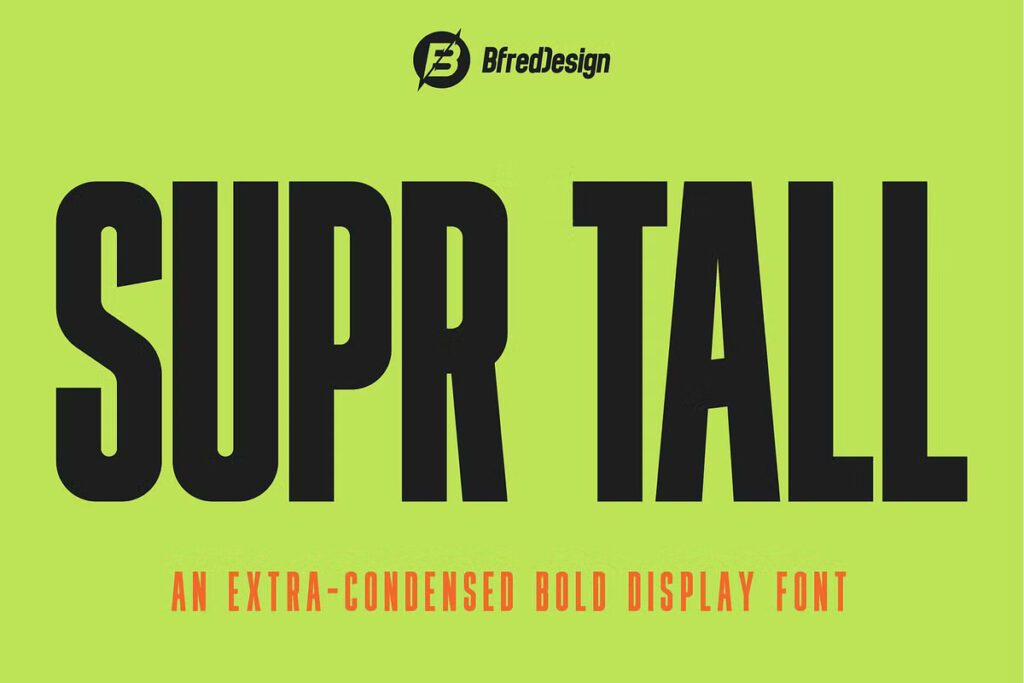
Introducing SUPR Tall – Extra Condensed Bold Display Font for Maximum Impact
Looking to create striking designs with bold typography in tight spaces? SUPR Tall is the extra-condensed addition to the SUPR Font Family, offering a perfect solution for sports graphics, posters, editorial titles, headlines, and more. Its compact yet powerful design allows you to make a big impact without taking up too much space. Whether it’s for a sports event or an eye-catching poster, SUPR Tall is versatile enough for any project.
With options like Regular, Italic, Bold, and Bold Italic, SUPR Tall gives you the flexibility to tailor your designs and achieve the bold, condensed look you need.